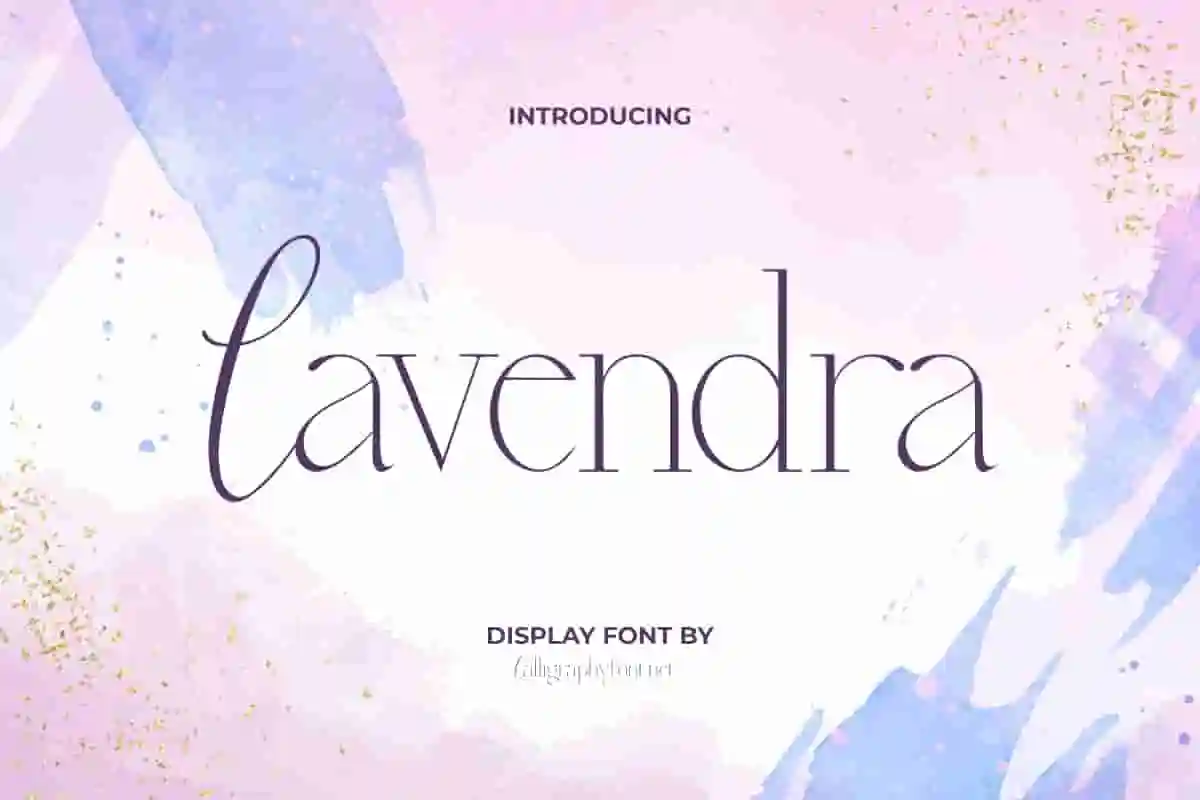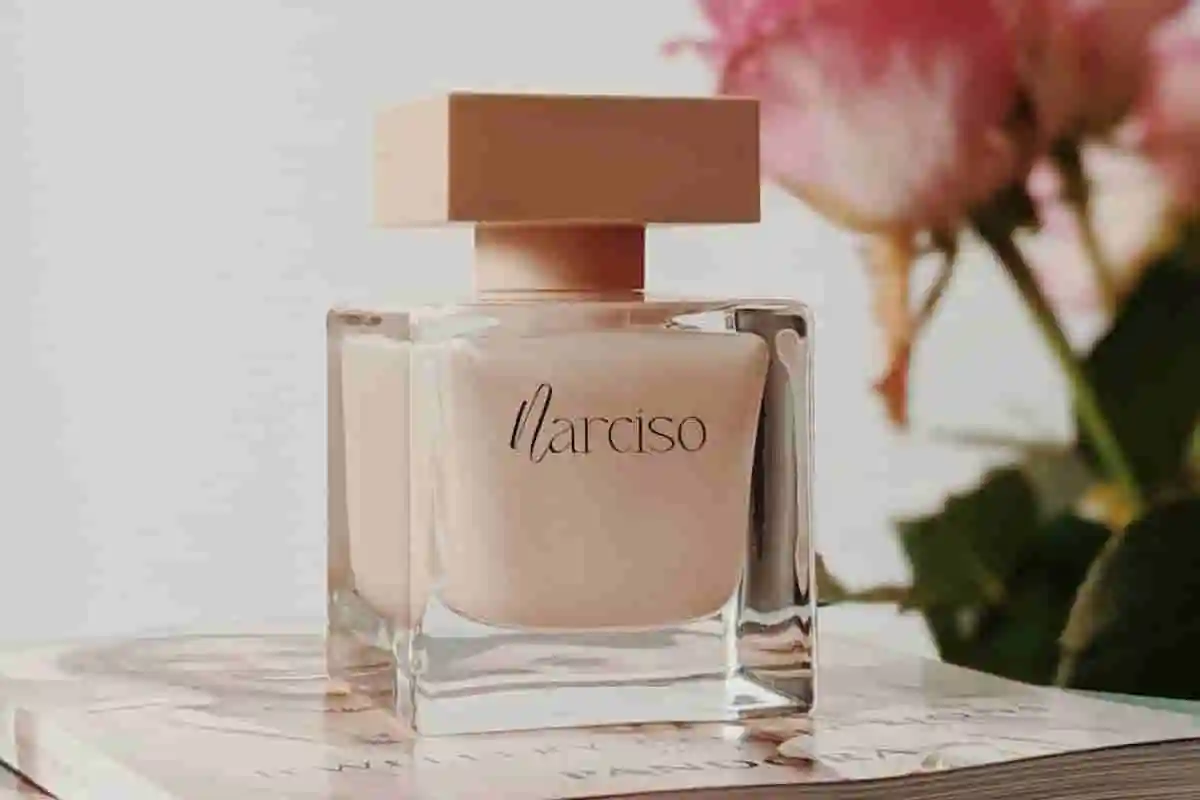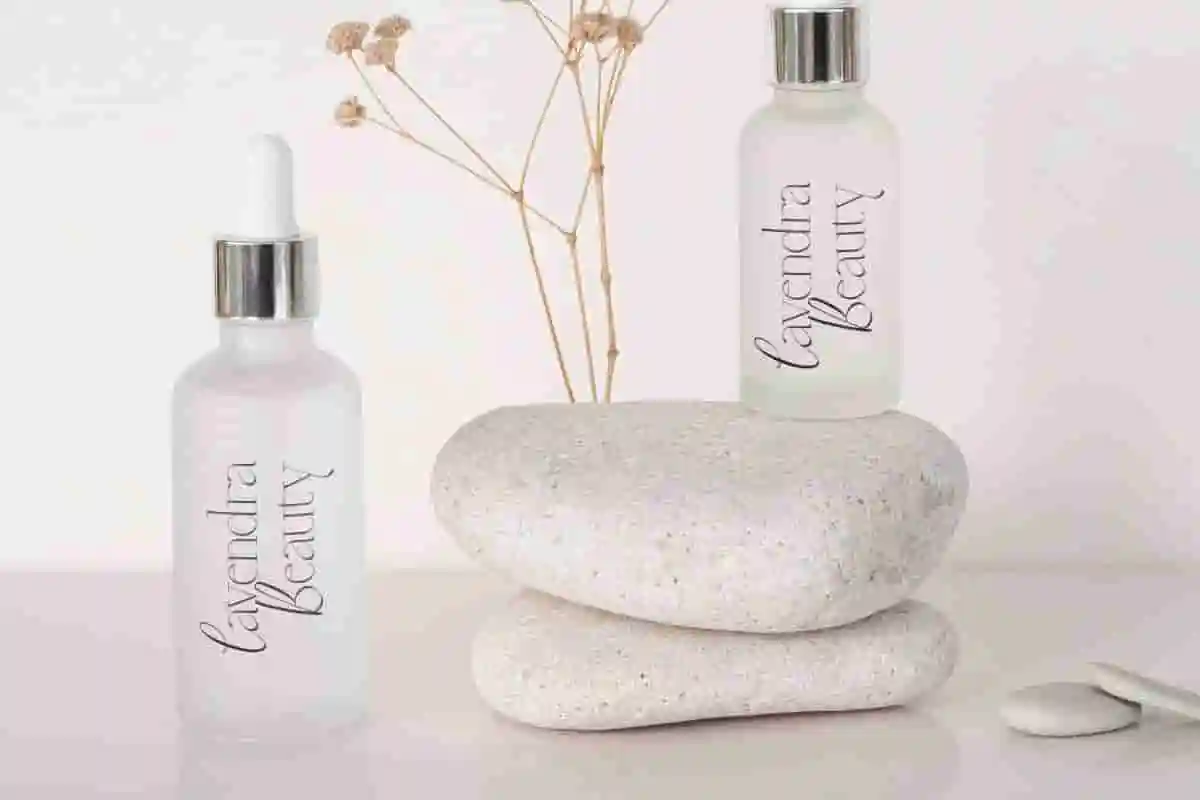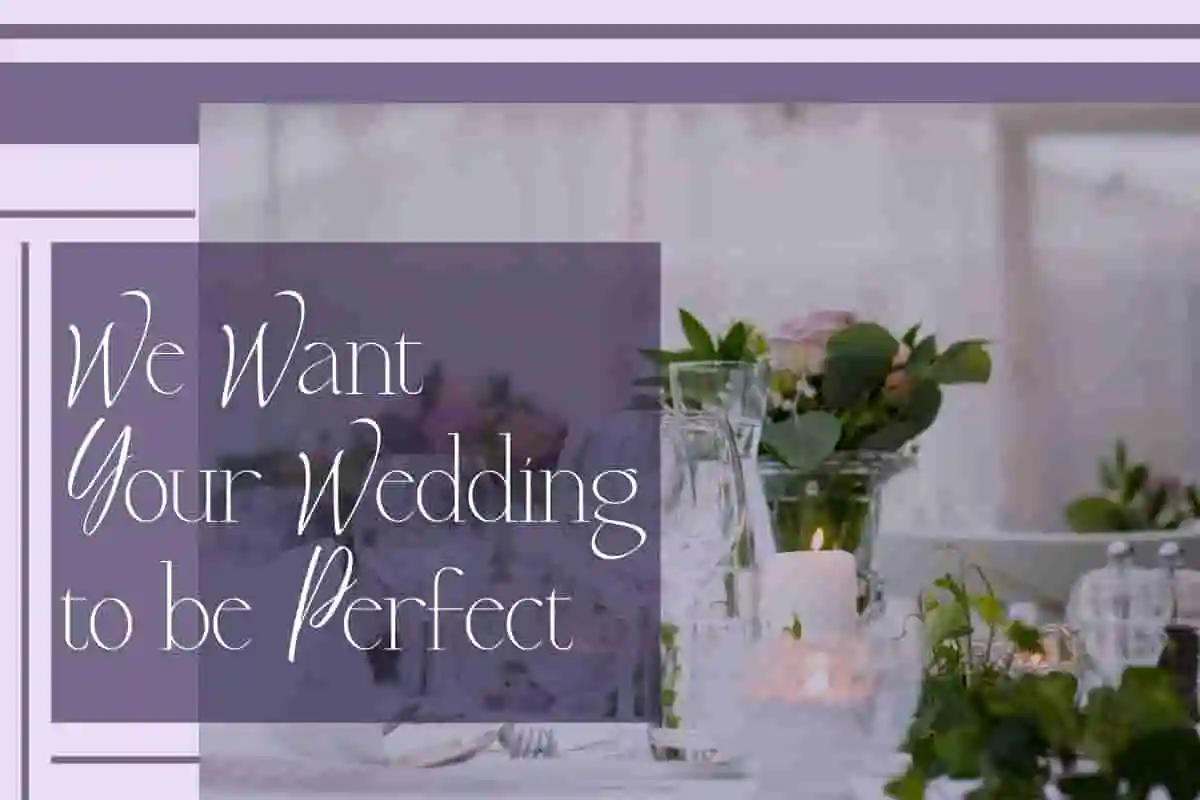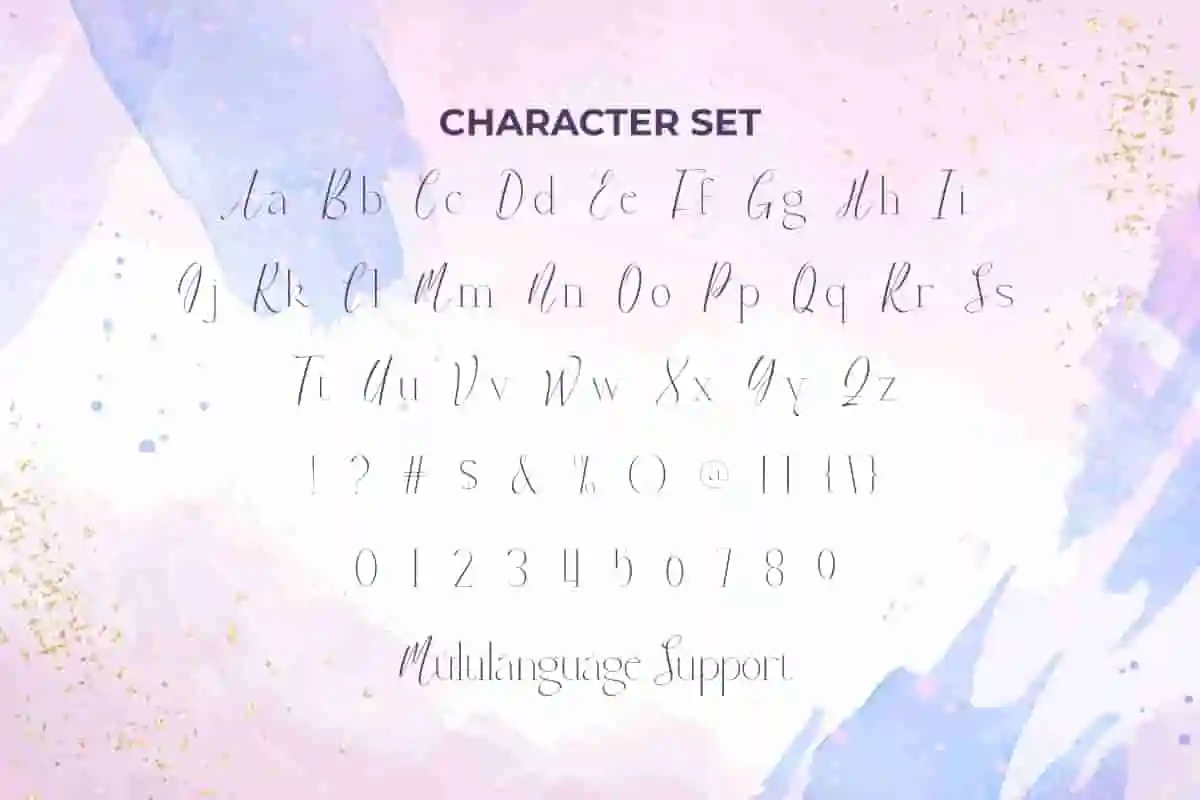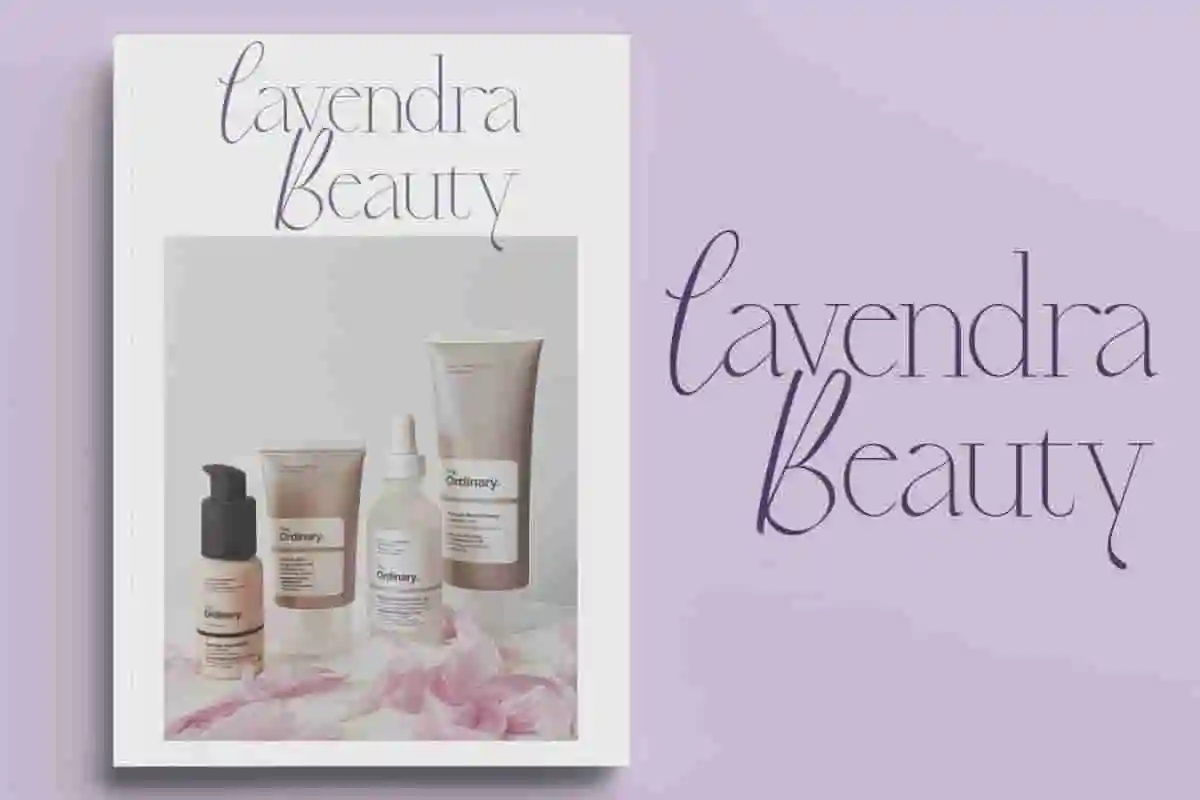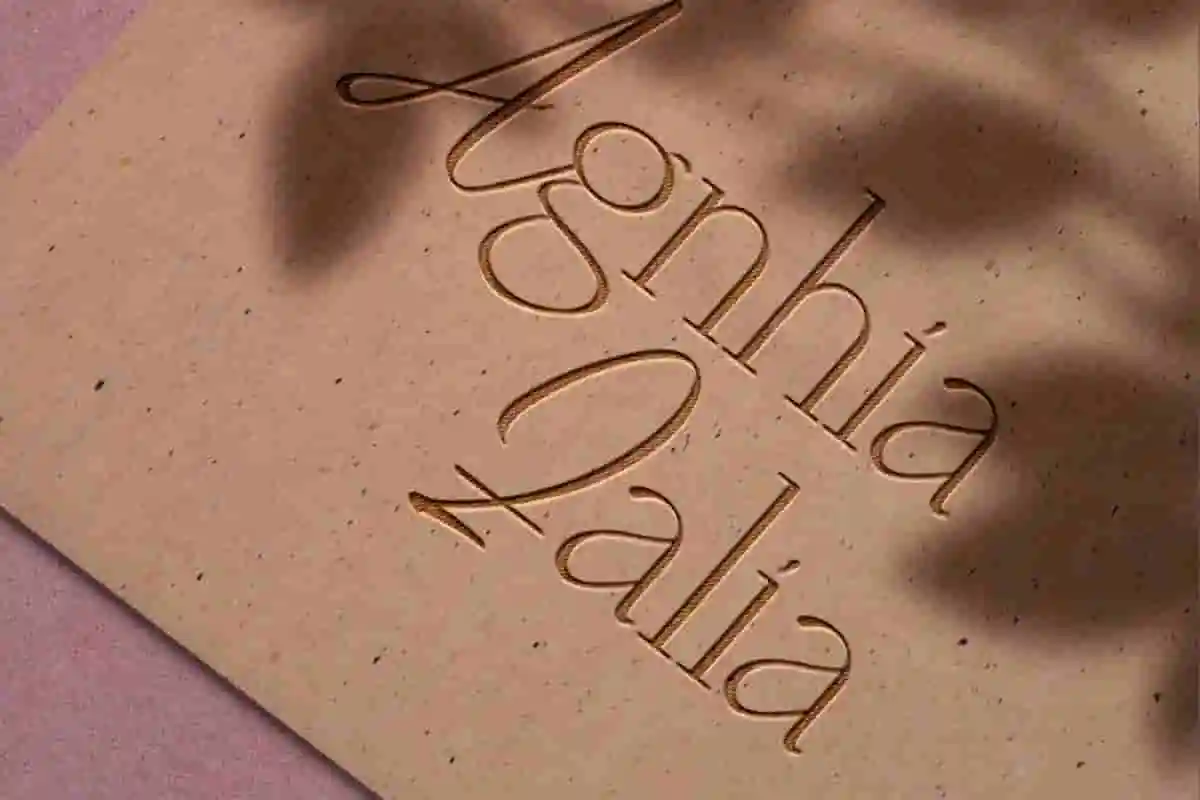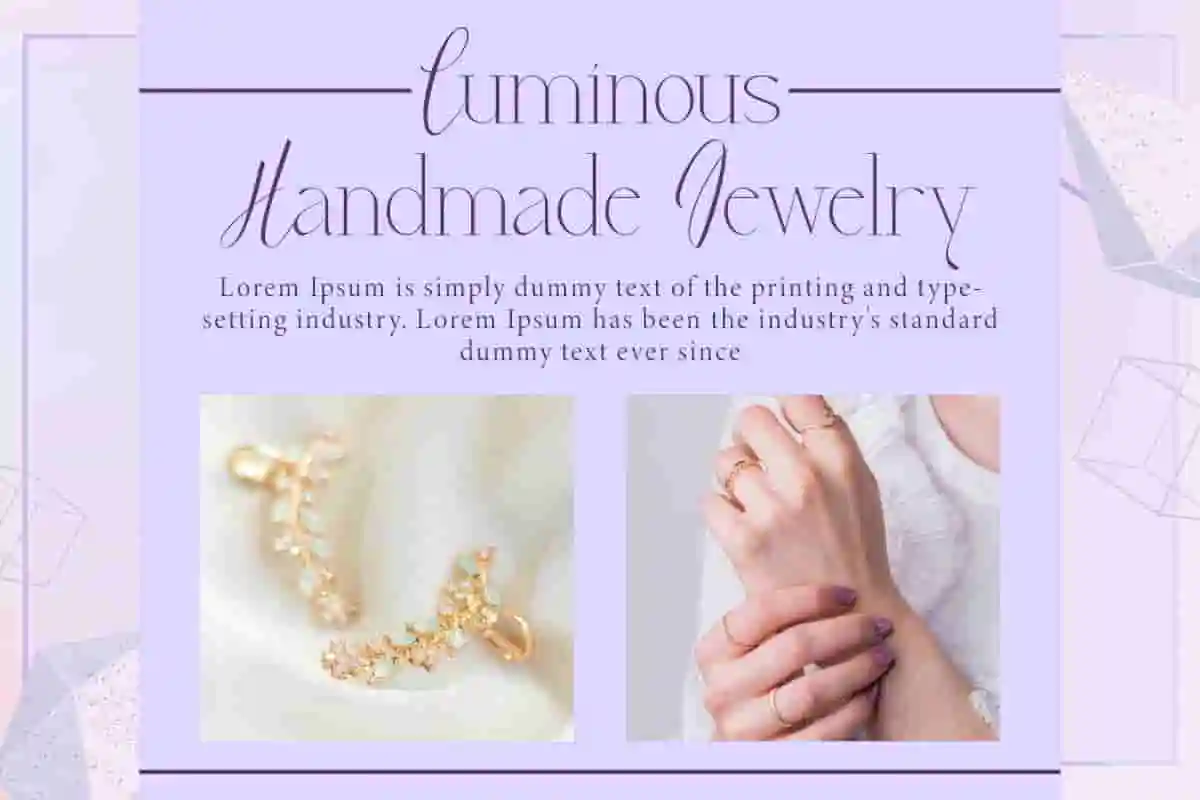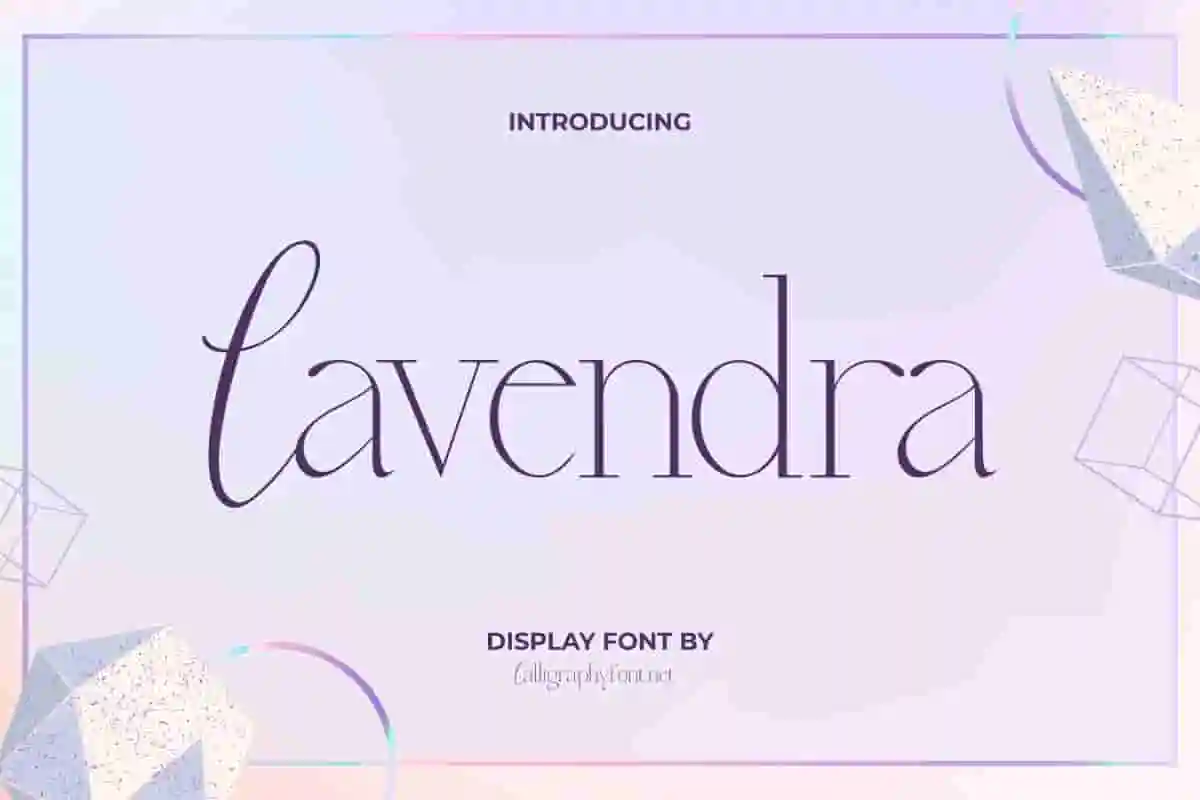
Lavendra Display Font
Lavendra Font is a beautiful display font with an elegant touch that offers charming typographic harmony for diverse project purposes.
Lavendra Font is a beautiful display font with an elegant touch that offers charming typography. This gives a truly chic touch to whatever your design needs are, such as album cover, apps themes, banners, branding logo, brochure, cards design, flyers, headers, invitations, labels, mockup designs, product packaging, quotes, stickers, titles, watermarks, website and anything that requires a gentle feminine look.
Introducing Lavendra Display Font, a stunning modern typeface that blends elegance, femininity, and bold design into one unforgettable font. With its soft curves, stylish letterforms, and high-contrast strokes, Lavendra is the perfect choice for projects that require both beauty and impact. Whether you’re designing for luxury branding, fashion labels, editorial layouts, logos, packaging, or social media content, Lavendra will instantly elevate your visuals with a sophisticated edge.
Meet Lavendra Display Font, a beautifully designed serif typeface that blends graceful curves with confident lines. Inspired by editorial elegance and high-fashion branding, Lavendra is perfect for projects that require a balance of softness and boldness. With its refined letterforms and artistic flair, Lavendra makes a stunning impression in logos, luxury branding, magazine titles, wedding invitations, product packaging, and social media graphics.
Step into a world of refined design with Lavendra Display Font, a striking modern serif typeface made for high-impact visuals. With its elegant contrast, artistic curves, and timeless form, Lavendra is perfect for projects that demand both style and sophistication. Ideal for fashion branding, editorial layouts, packaging, beauty products, wedding themes, and social media posts, Lavendra adds a high-end, designer touch to everything it graces.
- Elegant Yet Bold Style
- Perfect for High-End Design
Lavendra Font is an impeccably crafted display font bringing a trendy and classy feel to your luxury projects. The original style of the font creates a personal touch and is perfect for authors, beauty clinic, boutique, cafeteria, clothing brand, cosmetic, fashion, florist, furniture, graphic design, homeware, hotel, jewelry, photography, pottery, printing, publishing, restaurant, skincare, spa salon, wedding organizer, and much more.